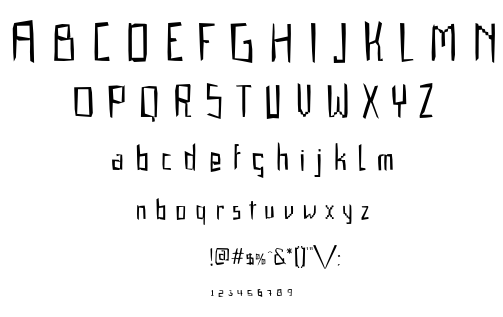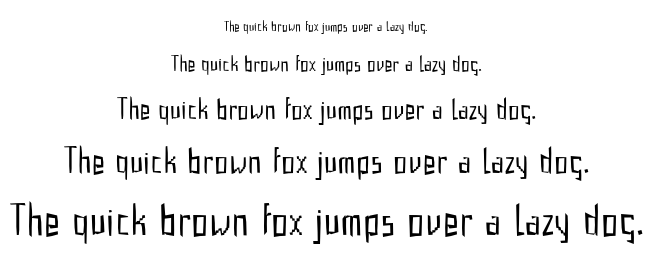
This is a typeface designed for use on billboards, posters or typographical posters, also logos, or any advertising graphic design project where typography is an essential element, the style could be framed within the classified supplies as graffity, this source has all the glyphs for Latin language
Esta es una typeface diseñada para su uso en carteles, posters o afiches tipográficos, también para logos, o para cualquier proyecto de diseño gráfico publicitario donde la tipografía es un elemento primordial, el estilo se podría enmarcar dentro de las fuentes clasificadas como graffity, esta fuente dispone de todos los glifos para los idiomas latinos